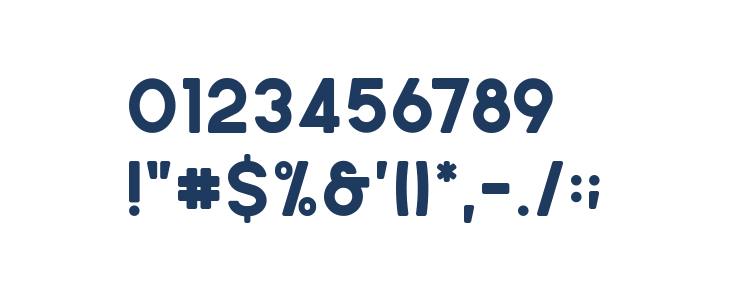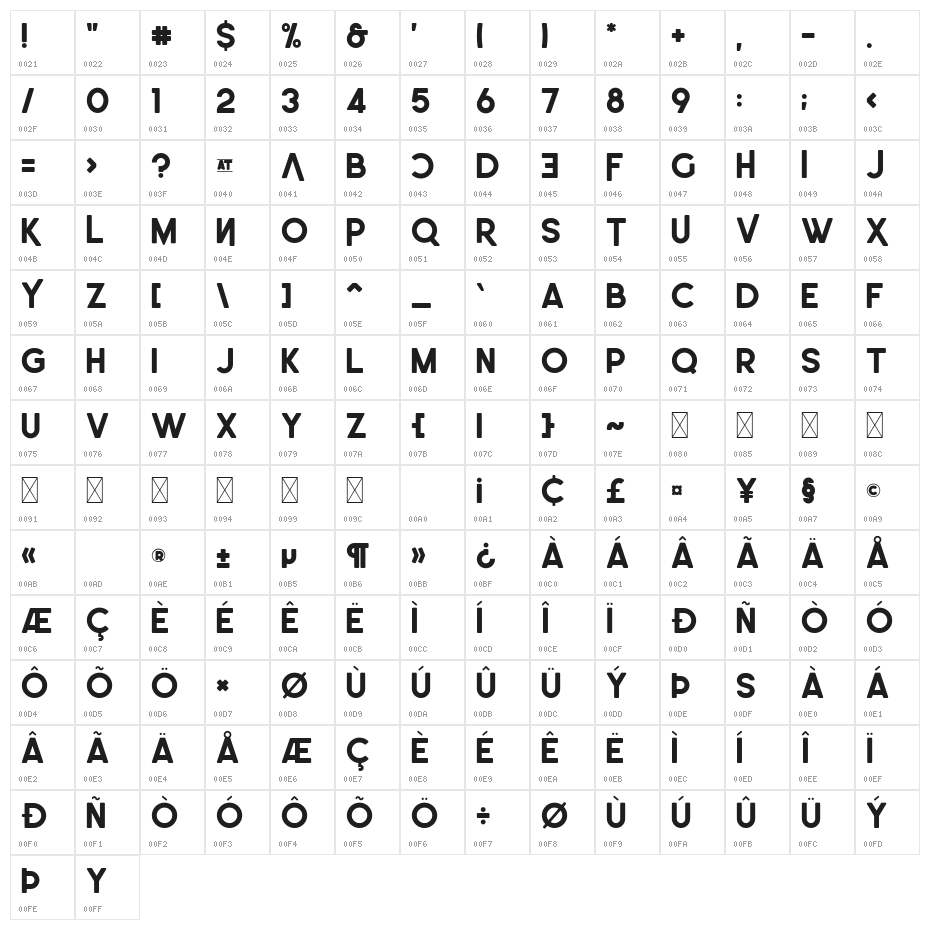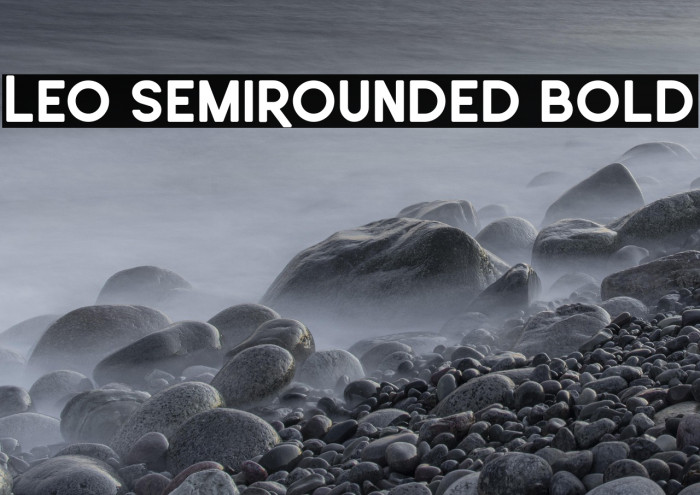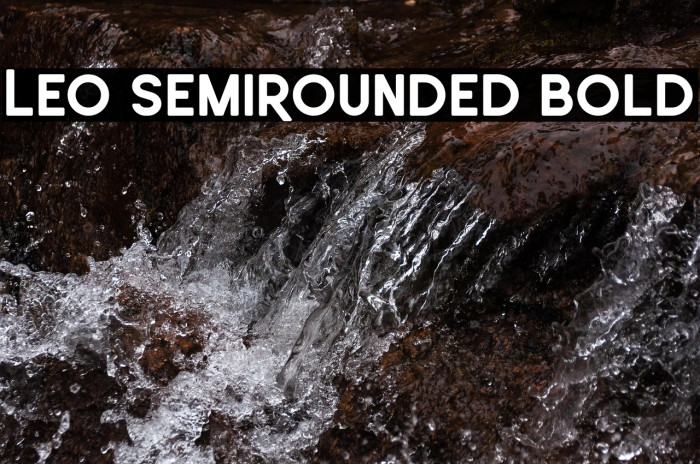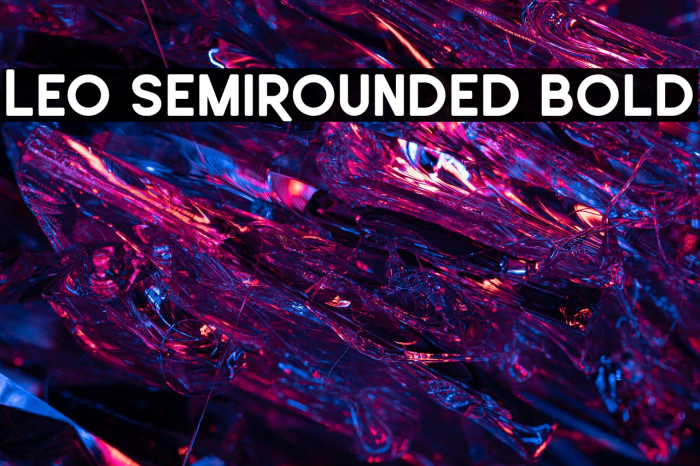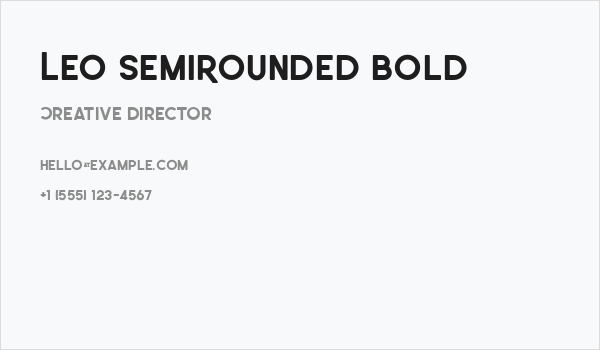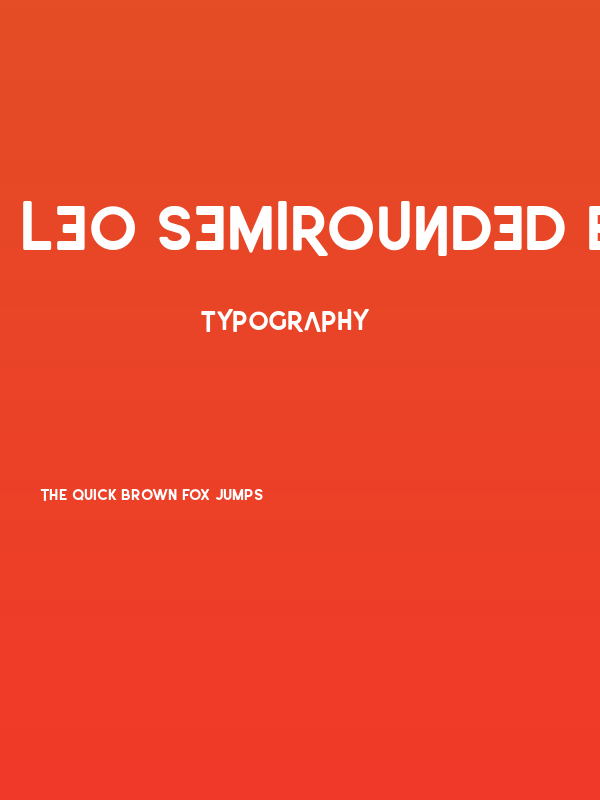
Leo SemiRounded Bold Font
Leo SemiRounded Bold Description
This font features a bold and semi-rounded design, offering a modern and approachable aesthetic. The characters are well-balanced with a consistent stroke width, providing a clean and uniform appearance. The semi-rounded edges soften the overall look, making it versatile for various applications. The numerals and special characters maintain the same boldness and rounded style, ensuring coherence across all elements. This font is suitable for both digital and print media, offering clarity and readability.